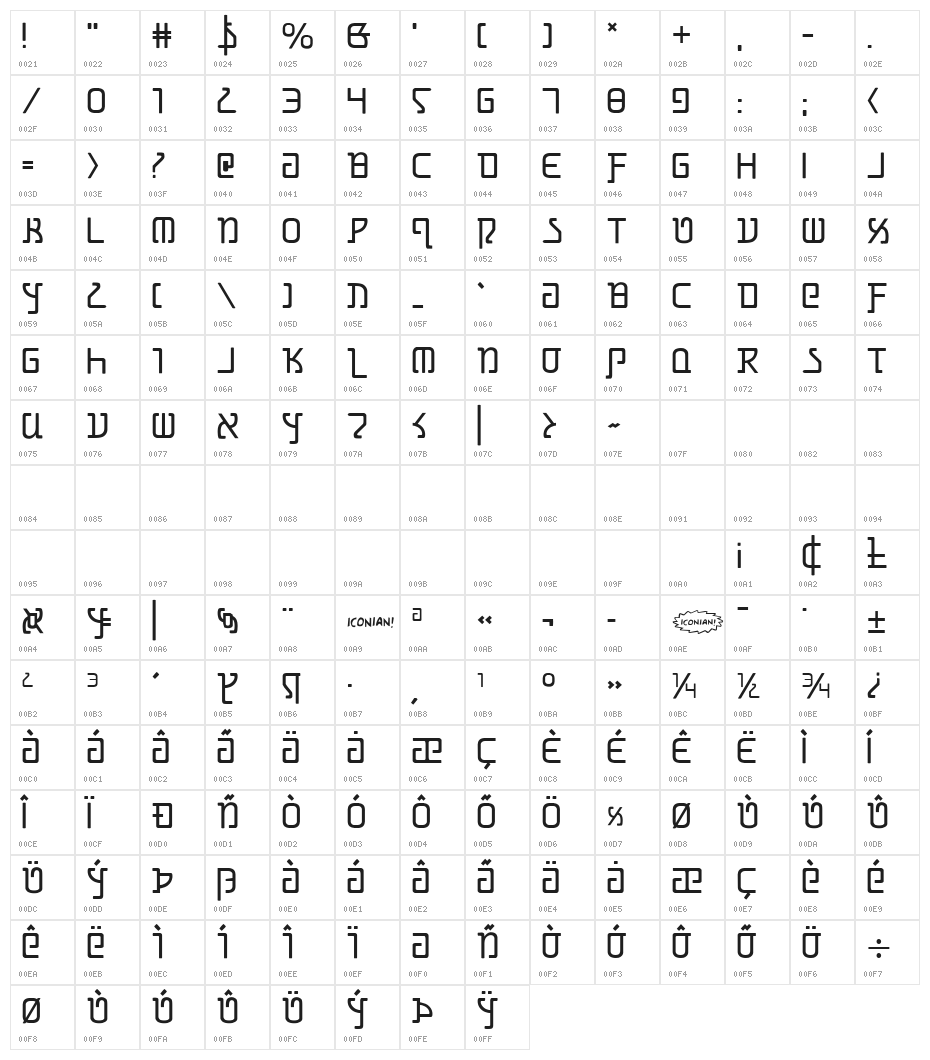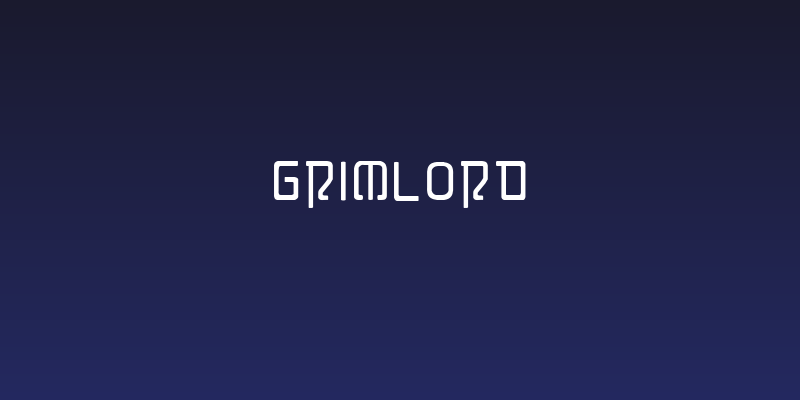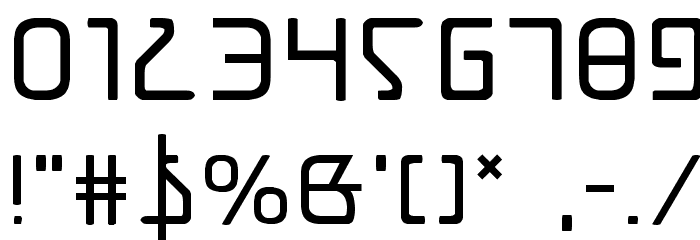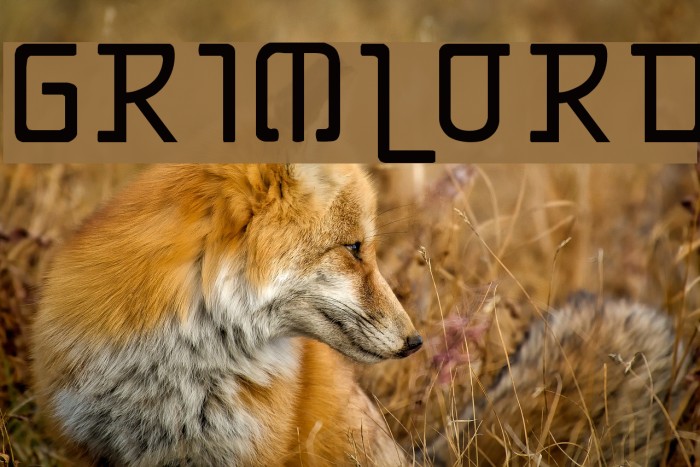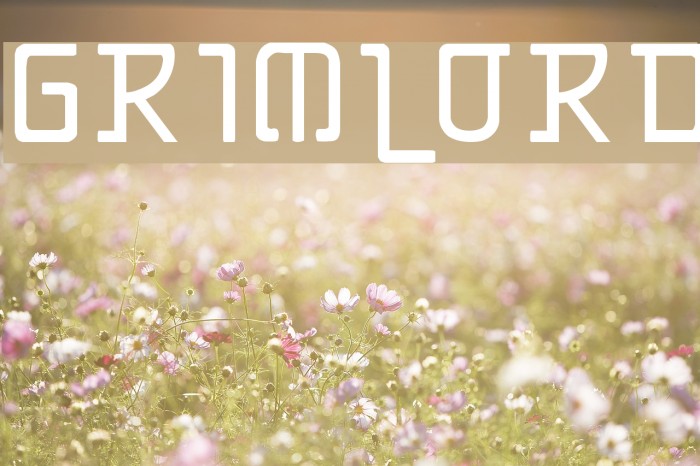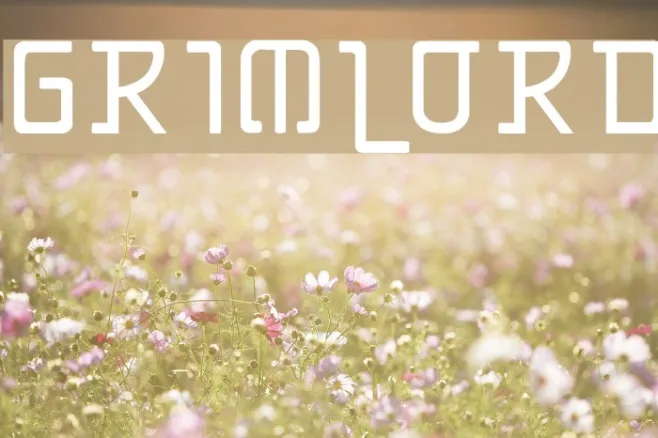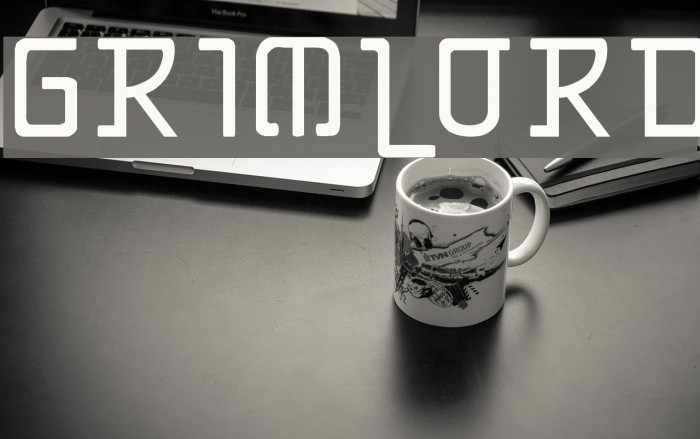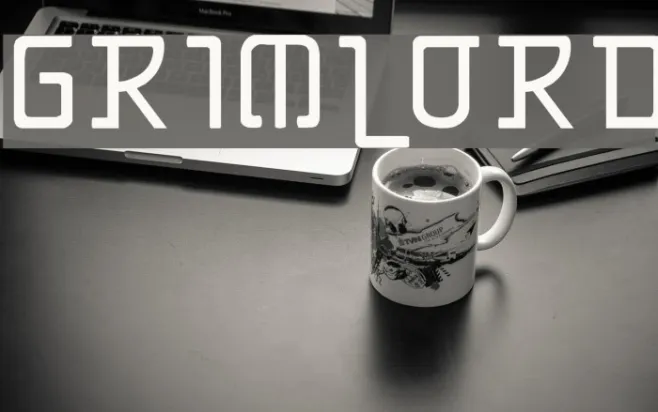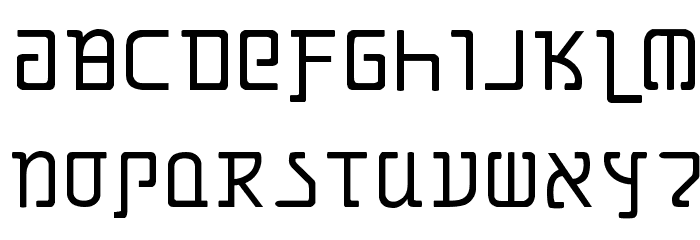
Grimlord Font
Grimlord Description
This font features a futuristic and geometric design, characterized by its angular and structured letterforms. The characters are composed of straight lines and sharp angles, giving it a modern and tech-inspired appearance. The uppercase and lowercase letters maintain a consistent style, with a uniform height and width that enhances readability. The numerals and special characters follow the same design principles, ensuring a cohesive look across all glyphs. This font's unique style makes it suitable for projects that require a contemporary and edgy aesthetic.
| Proposed Projects | Ideal for technology branding, sci-fi movie posters, video game titles, and modern digital interfaces. |